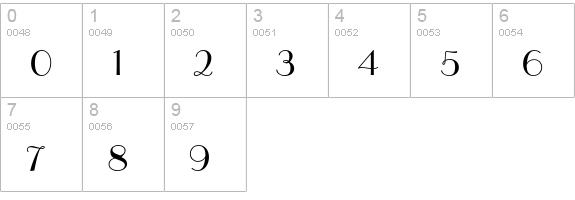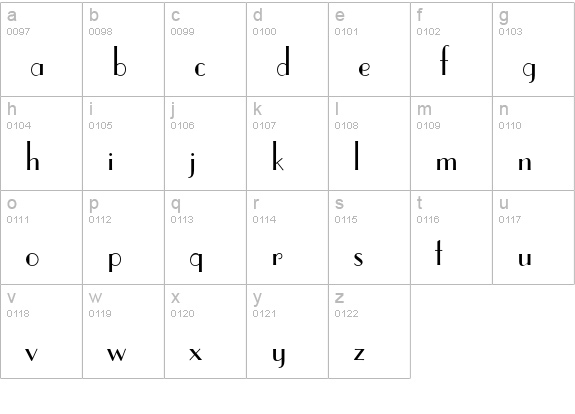
Introducing the mesmerizing Parisian font, a true embodiment of elegance and sophistication. With its graceful curves and delicate strokes, this exquisite typeface effortlessly captures the essence of the enchanting city of Paris. Parisian font is a perfect blend of classic beauty and modern flair, making it the ideal choice for any design project that seeks to evoke a sense of timeless charm. Whether used for headlines, logos, invitations, or branding materials, this font will add a touch of Parisian allure that is simply irresistible. But what truly sets Parisian font apart is its accessibility. We believe that great design should be available to all, which is why we are thrilled to offer this incredible font for free. Yes, you read that right – Parisian font can be freely downloaded at FontsMarket.com, ensuring that designers, creatives, and enthusiasts from all walks of life can incorporate its elegance into their work. So, why wait? Embrace the beauty of Paris with the Parisian font. Give your designs a touch of sophistication and let the allure of the City of Lights shine through. Download this remarkable font from FontsMarket.com today and elevate your creations to new heights.